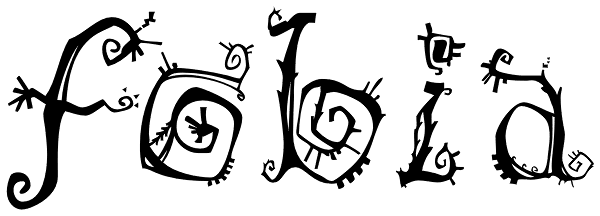
Fobia
Fonts that 'break all the rules' can be used for all manner of lively display. Daryl Roske drew this single style, his first typeface, for Font Bureau by hand and, with the complexity of his letterforms, challenged outline font technology. In...